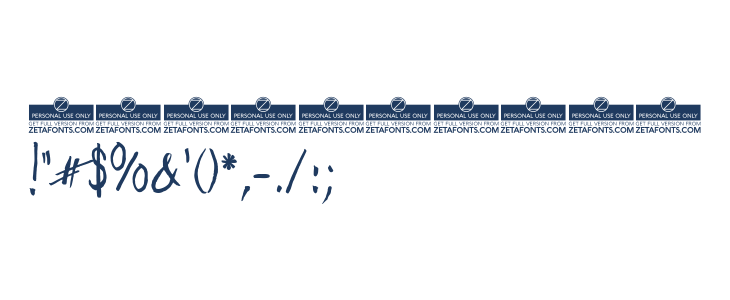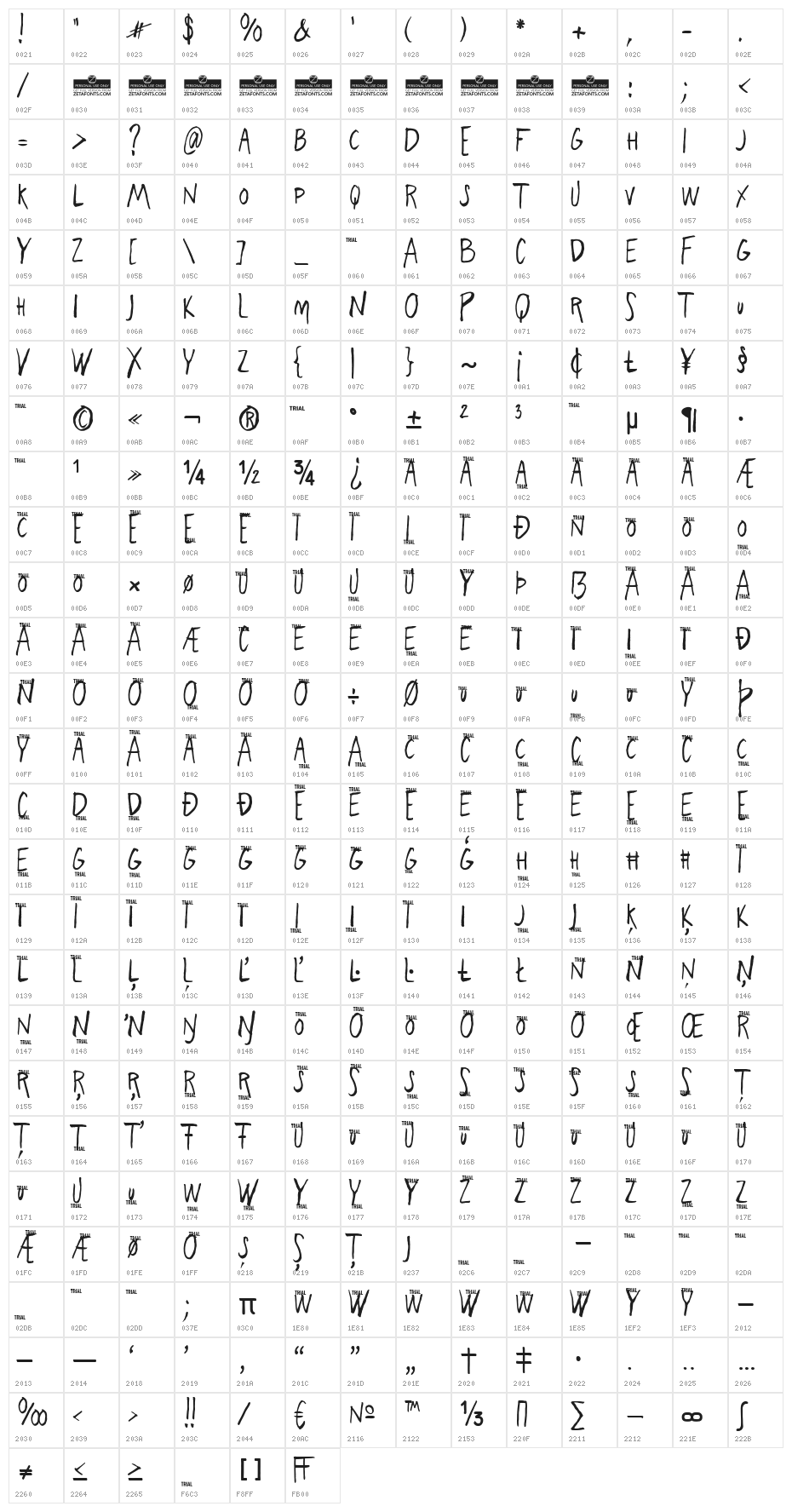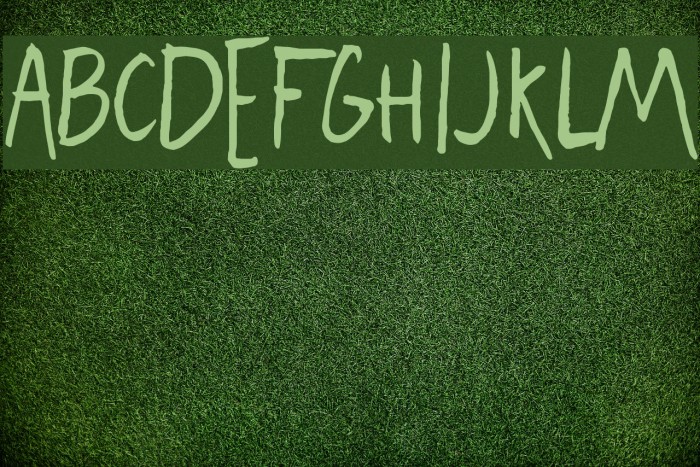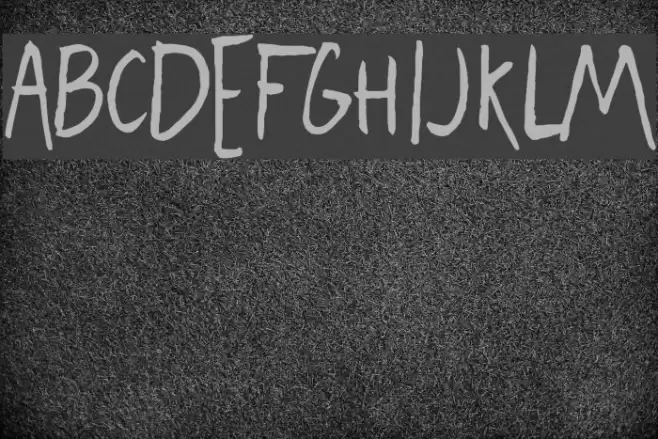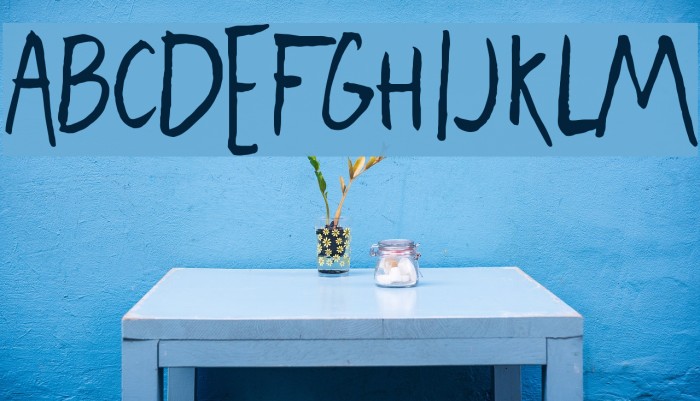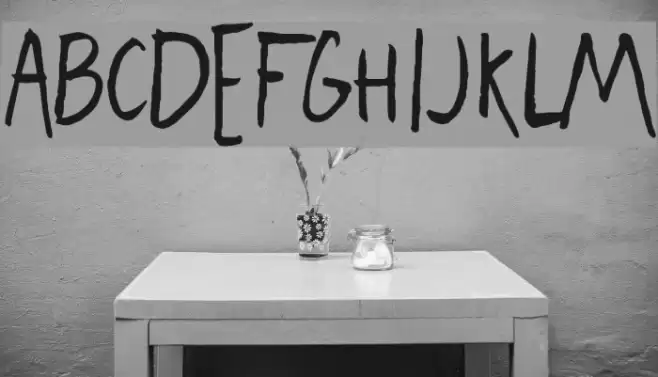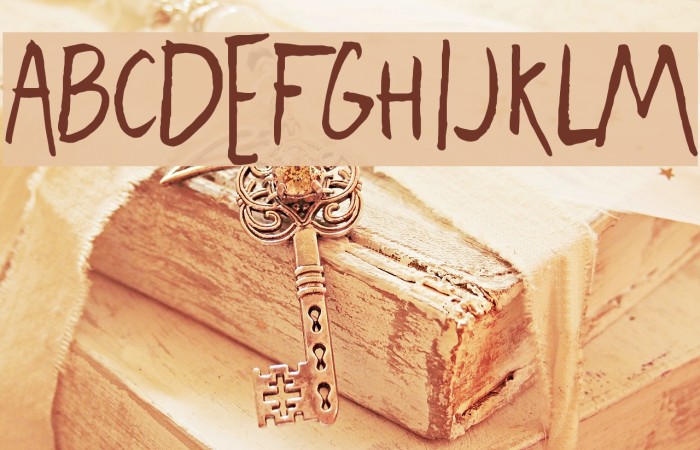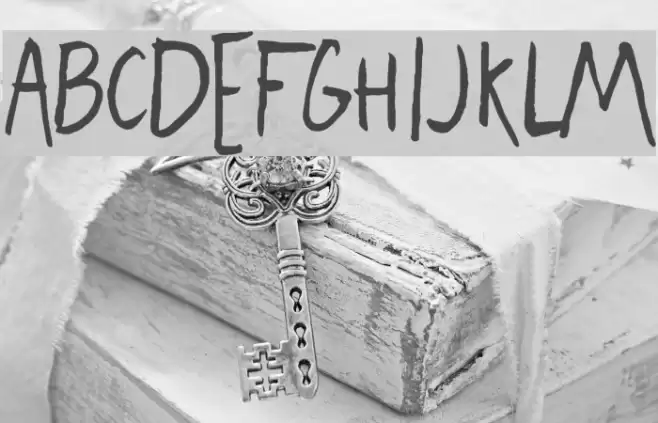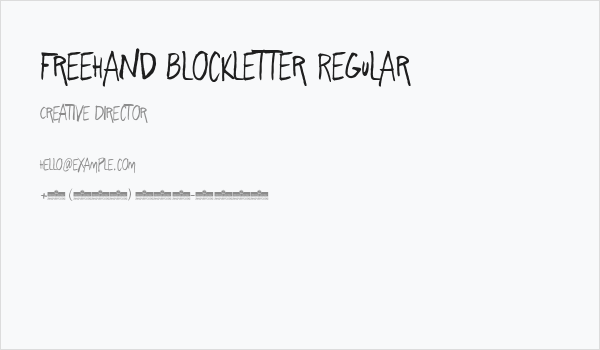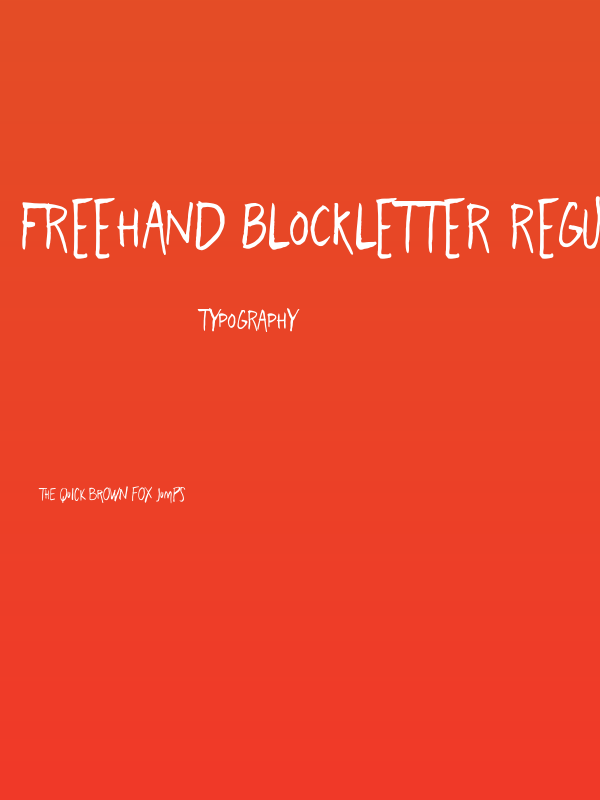
Freehand Blockletter Regular Font
Freehand Blockletter Regular Description
This font exudes a playful and informal style, characterized by its hand-drawn appearance. The letters are uneven and slightly slanted, giving it a casual and spontaneous feel. The strokes are bold and expressive, with varying thickness that adds to its dynamic look. The uppercase and lowercase letters maintain a consistent style, with a noticeable distinction between the two. The numerals and special characters follow the same freehand aesthetic, making the font suitable for creative and artistic projects. Its unique style captures attention and conveys a sense of individuality and creativity.
| Proposed Projects | Ideal for creative projects such as posters, invitations, and artistic branding that require a personal touch. |